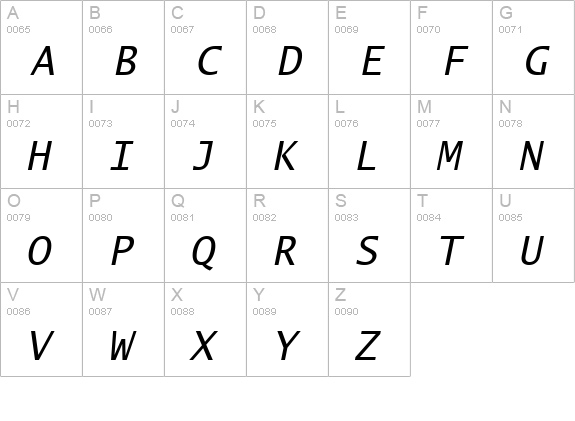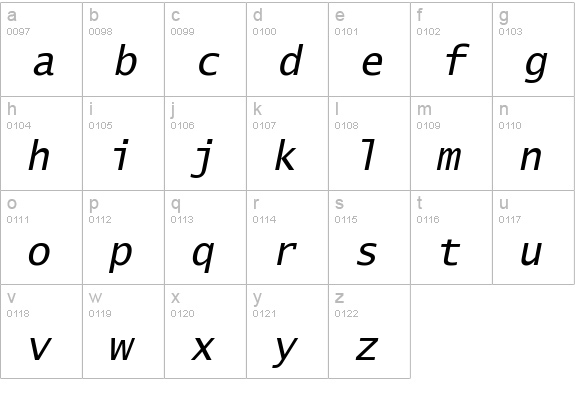
Lucida Sans Typewriter Oblique Font Details
Lucida Sans Typewriter Oblique is a distinctive, italic variant in the Lucida typeface family \xE2\x80\x94 well suited to design and typography projects.
Lucida Sans Typewriter Oblique font is a sleek and modern typeface that combines the clarity of a typewriter font with the elegance of a sans serif design. The slanted letters add a touch of style and sophistication to any text, making it a versatile choice for a variety of projects. Whether you're creating a professional document or designing a creative piece, Lucida Sans Typewriter Oblique font is sure to make a statement. The best part is that this font is completely free to download at FontsMarket.com. Simply visit the website to access this beautiful typeface and enhance your projects with its unique charm. Don't miss out on the opportunity to add Lucida Sans Typewriter Oblique font to your font library today!